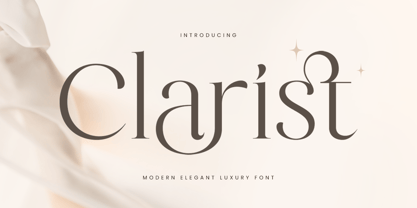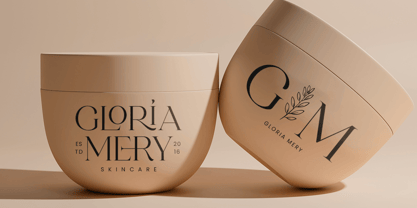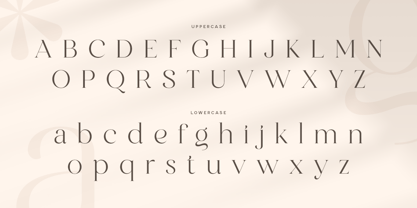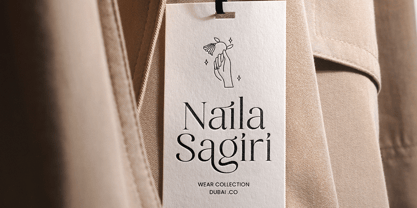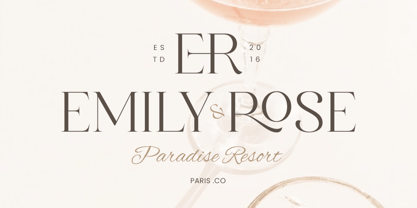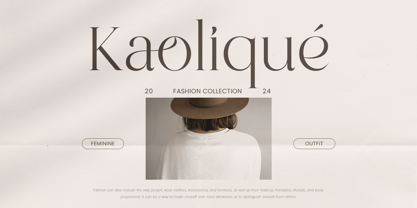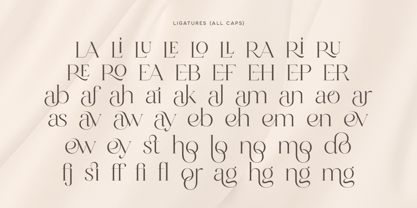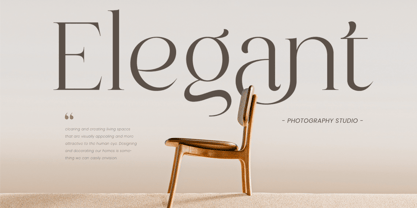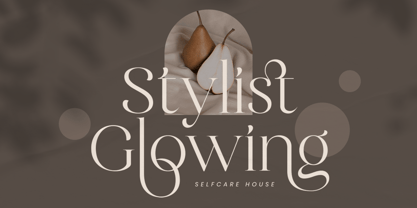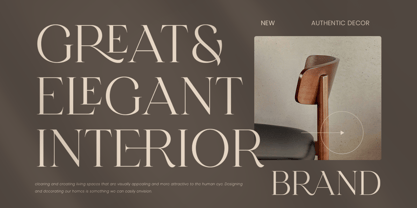
Clarist
by Sensatype Studio
The Clarist Font Family was designed by Zamroni Hamzah and published by Sensatype Studio. Clarist contains 2 styles and family package options. More about this family
Clarist - Modern Elegant Luxury Font
Clarist is a modern font that exudes elegance and luxury, crafted to elevate any design project to a cinematic level. Its sophisticated characters are perfect for high-end branding, logos, and editorial designs, bringing a sense of refinement and class to your work.
The creation of Clarist was inspired by the blend of modern aesthetics with timeless elegance. Every curve and line is meticulously designed to reflect a luxurious feel, making it an ideal choice for designers looking to create a powerful and memorable visual identity. Whether used in titles, headlines, or body text, Clarist stands out with its exquisite details.
Beyond its visual appeal, Clarist offers functionality with its unique ligatures, punctuation, numbers, symbols, and multilingual support. This font ensures versatility, making it a valuable addition to any designer's toolkit for both print and digital media.
Clarist Modern Elegant Luxury Font Features:
• Unique Ligature Characters Ready
• Punctuation, Number, and Symbol
• Uppercase and Lowercase
• Multilingual Support
• Opentype Features
Designers: Zamroni Hamzah
Foundry: Sensatype Studio